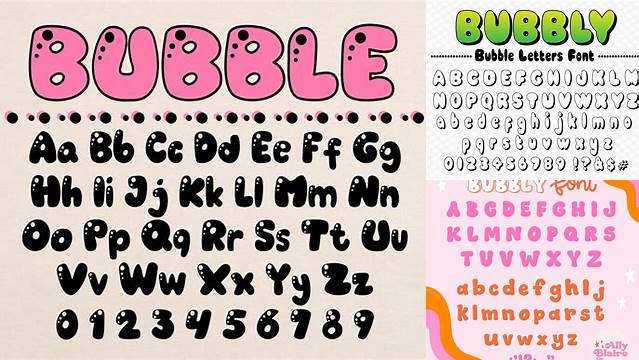
Bubbly Fonts: Fun Names & How To Use Them
Hey guys! Ever wanted to add a playful and cheerful vibe to your designs? Well, bubbly fonts are your answer! These fonts, with their rounded edges and soft shapes, instantly inject fun and personality into any project. Whether you're working on a children's book, a party invitation, or a quirky logo, bubbly fonts can make your text pop. In this article, we'll dive into the world of these delightful fonts, exploring some awesome names and how to use them effectively. Let's get this font party started!
What are Bubbly Fonts?
Bubbly fonts, also known as cartoon fonts or playful fonts, are characterized by their rounded, soft, and often inflated letterforms. These fonts evoke a sense of fun, whimsy, and friendliness, making them perfect for designs that aim to be approachable and lighthearted. Think about the fonts you see on children's product packaging, animated movie titles, or even ice cream shop signs – chances are, those are bubbly fonts in action!
Characteristics of Bubbly Fonts
- Rounded Edges: This is the most defining feature. Instead of sharp corners, bubbly fonts have smooth, curved edges that give them a soft and gentle appearance.
- Thick Strokes: Many bubbly fonts have thick, bold strokes, which enhance their visibility and playful nature. The thickness adds to the overall impression of fullness and cheerfulness.
- Inflated Shapes: Some bubbly fonts look like the letters have been inflated, giving them a bouncy and energetic feel. This characteristic makes them particularly suitable for projects that need a dynamic touch.
- Whimsical Details: You might find little quirks and unique details in bubbly fonts, such as irregular baselines, playful serifs (or lack thereof), and unexpected curves. These elements add to their charm and individuality.
Where to Use Bubbly Fonts
Bubbly fonts are incredibly versatile and can be used in various design contexts. Here are a few ideas:
- Children's Books and Products: Bubbly fonts are a natural fit for anything related to kids. They add a sense of fun and innocence that appeals to young audiences.
- Party Invitations: Planning a birthday bash or a casual get-together? A bubbly font on your invitation will instantly set the tone for a joyful event.
- Logos and Branding: If your brand aims to be seen as friendly, approachable, and fun, a bubbly font can be a great choice for your logo and other branding materials. Think about brands in the food, toy, or entertainment industries.
- Social Media Graphics: Want to make your social media posts stand out? Use a bubbly font for your headers and captions to grab attention and convey a positive message.
- Educational Materials: Bubbly fonts can make learning materials more engaging and less intimidating for students. They're great for worksheets, presentations, and classroom decorations.
So, why do bubbly fonts work so well? It's all about psychology, guys. The rounded shapes and soft lines trigger positive emotions and associations. They remind us of childhood, playfulness, and carefree times. When you use a bubbly font, you're not just choosing a typeface; you're choosing a mood and a message. You're telling your audience that you're fun, friendly, and approachable. This makes bubbly fonts a powerful tool for connecting with people and making a lasting impression.
Popular Bubbly Font Names
Alright, let's dive into some specific bubbly font names that you can use for your projects. There are tons of fantastic options out there, each with its unique personality. Here are a few popular ones to get you started, categorized for easier browsing:
Classic & Playful
Chewy: This font is like a big, soft hug in letter form. Chewy has rounded edges and a slightly retro vibe, making it perfect for projects that need a touch of nostalgia and warmth. Imagine using Chewy for the title of a children's book or the logo of a candy store. Its friendly demeanor invites readers and customers alike.
Luckiest Guy: With its bold, chunky letters, Luckiest Guy exudes confidence and fun. It's the kind of font that makes a statement without being too serious. This font is excellent for headings, posters, and anything that needs to grab attention. Think about using Luckiest Guy for a party flyer or a motivational poster to add a burst of energy and enthusiasm.
Bubblegum Sans: As the name suggests, Bubblegum Sans is sweet, bouncy, and full of fun. This font has a clean, modern feel with rounded terminals that make it incredibly approachable. It’s a fantastic choice for websites, apps, and other digital projects that need a playful touch. Envision using Bubblegum Sans for a kids' app interface or a website promoting a summer camp to create a vibrant and inviting atmosphere.
Quirky & Funky
Porky's: Porky's font has a unique, hand-drawn feel with slightly irregular shapes that add to its charm. It’s perfect for projects that need a touch of whimsy and personality. Imagine using Porky's for a cafe menu or a quirky blog header to inject a dose of character and individuality.
So, guys, there you have it! Bubbly fonts are a fantastic way to inject fun and personality into your designs. From classic and playful to quirky and modern, there’s a bubbly font out there for every project. By understanding the characteristics of these fonts and how to use them effectively, you can create designs that are both visually appealing and emotionally engaging. Whether you're working on a children's book, a party invitation, or a brand logo, don't hesitate to explore the world of bubbly fonts and see how they can bring your ideas to life. Remember to consider the context, pair wisely, use sparingly, and always prioritize legibility. Now go out there and make some bubbly magic!